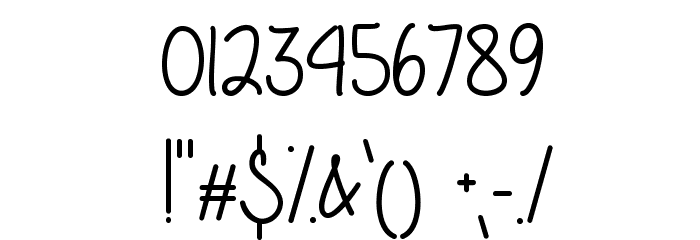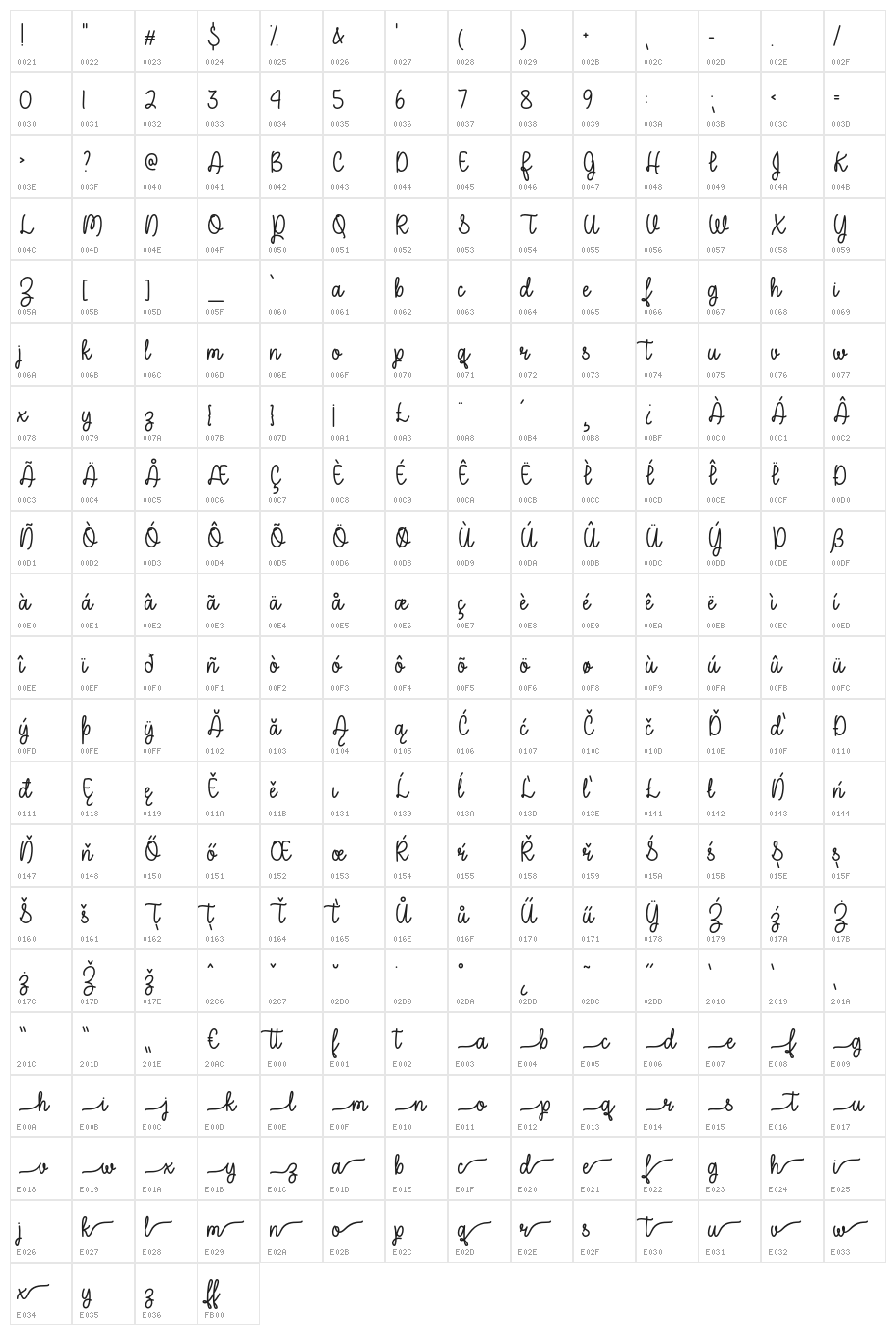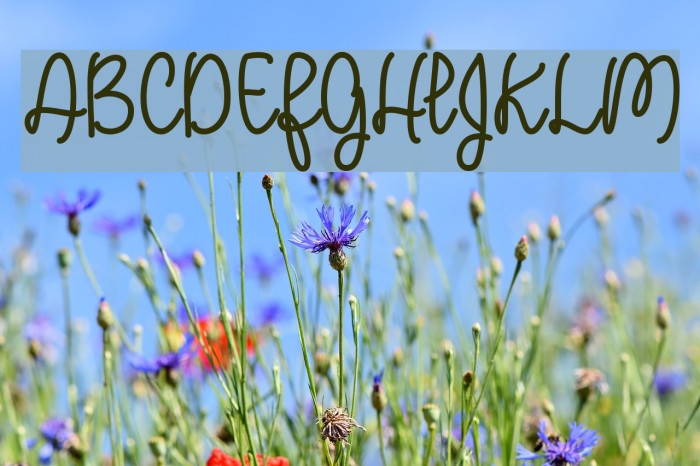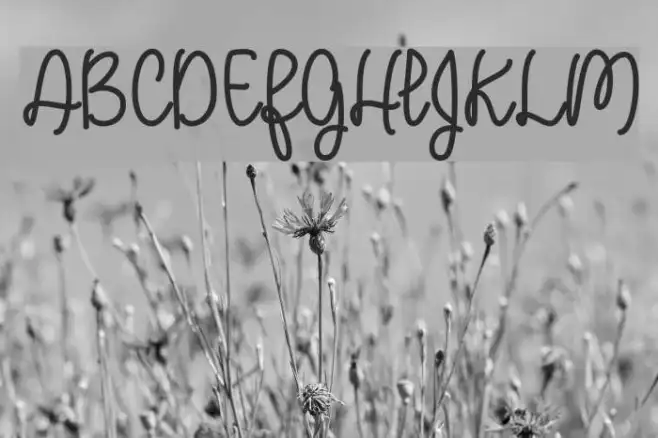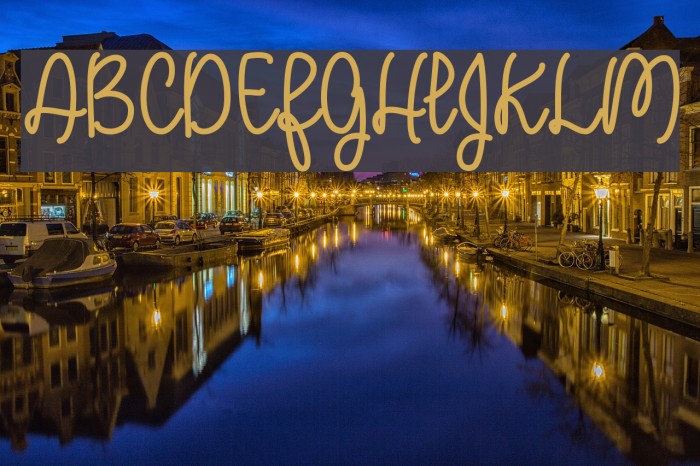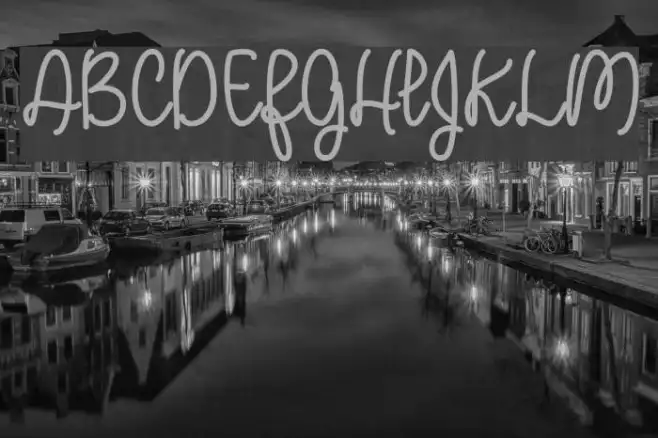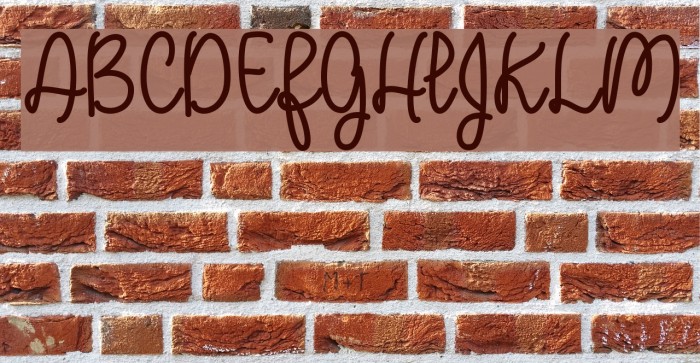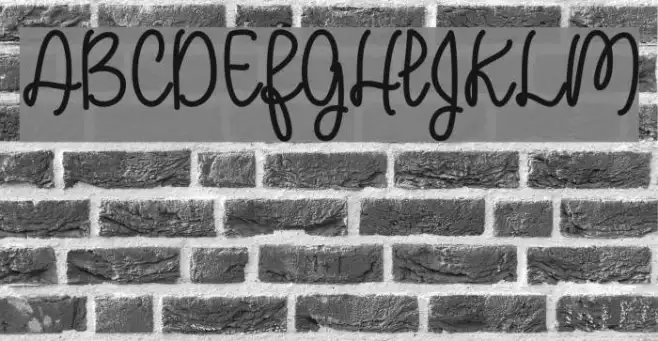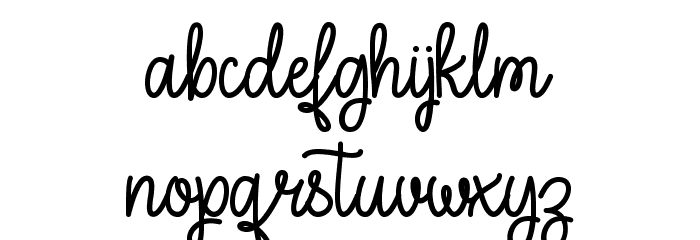
APerfectPlace Font
APerfectPlace Description
This font exudes a playful and whimsical charm with its handwritten style. The letters are characterized by smooth, flowing curves and a slightly irregular baseline, giving it a casual and friendly appearance. The uppercase letters are bold and prominent, while the lowercase letters maintain a consistent style that complements the uppercase. Numbers and special characters are crafted with the same playful aesthetic, ensuring a cohesive look across all text. The font's overall design is approachable and versatile, suitable for a variety of creative projects.
| Proposed Projects | Ideal for greeting cards, invitations, playful branding, children's books, and social media graphics. |